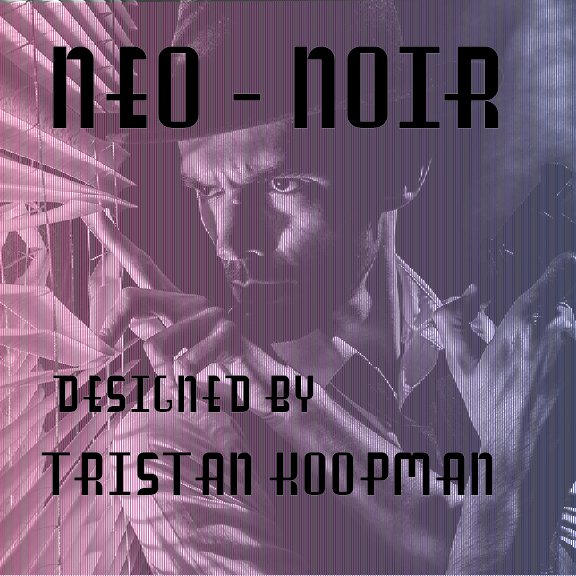
• Font inspired by the Neo-Noir genre of movies like L.A. Confidential, Drive, Blade Runner, as well as taking inspiration from older Noir movies such as Sunset Boulevard, The Night of the Hunter, and Laura